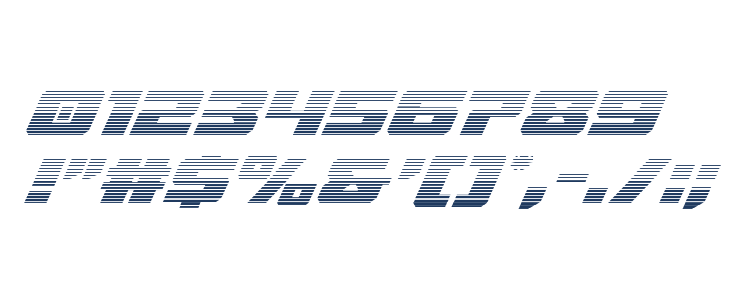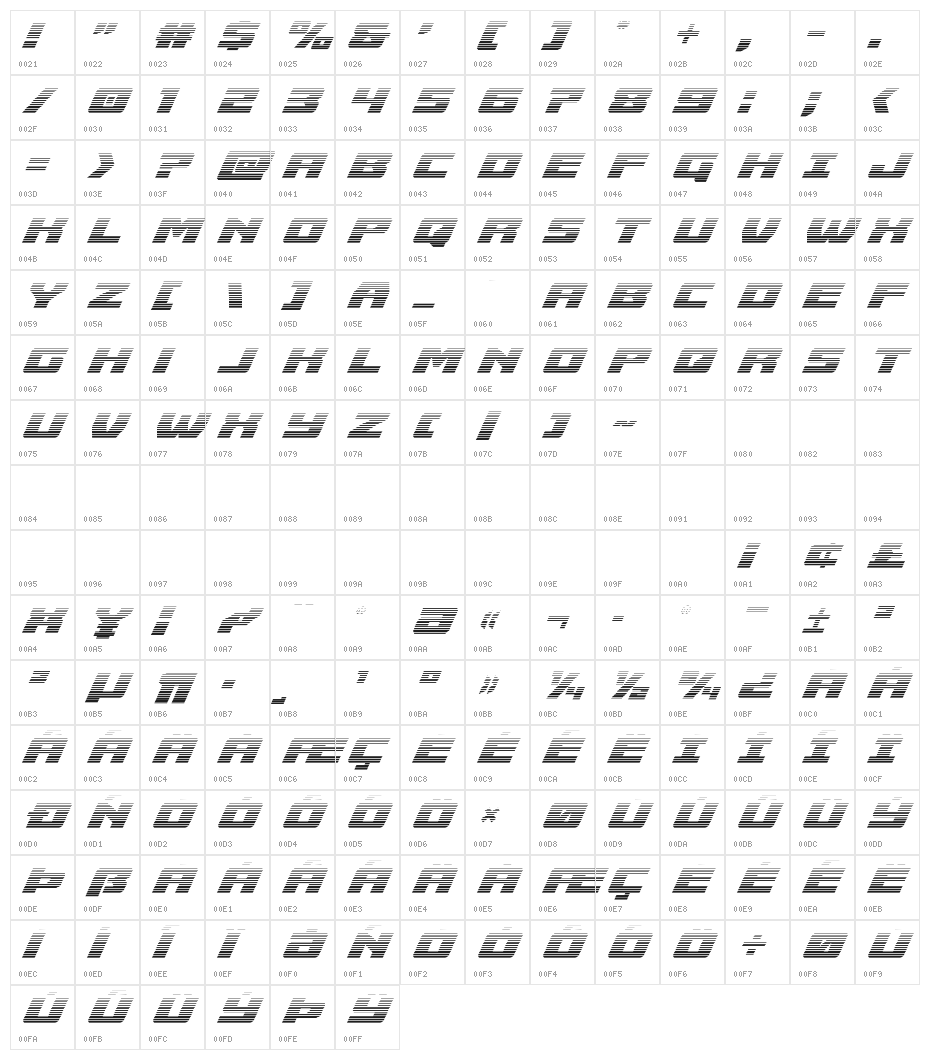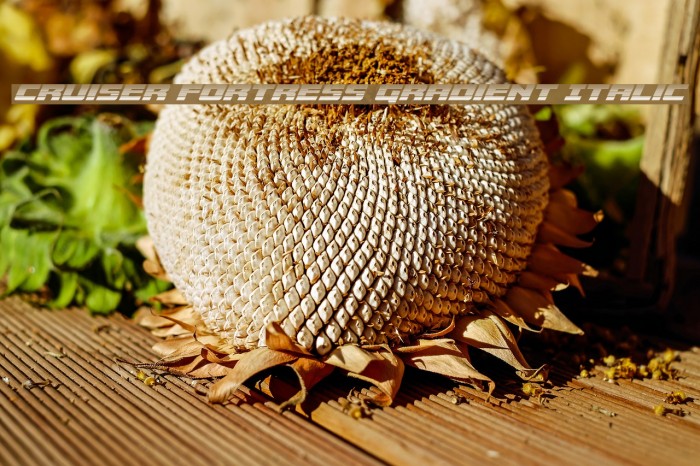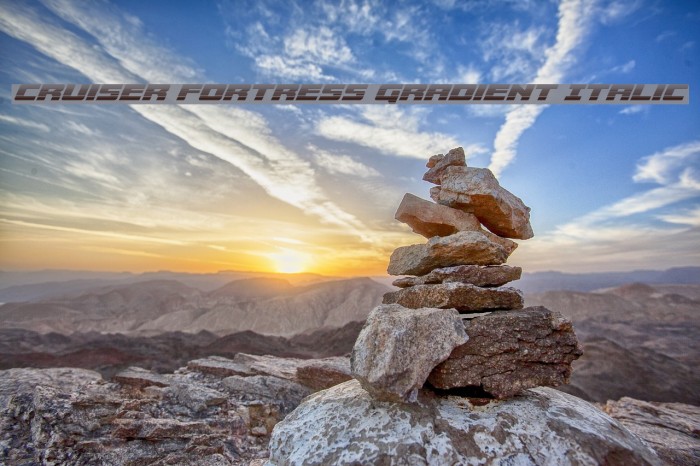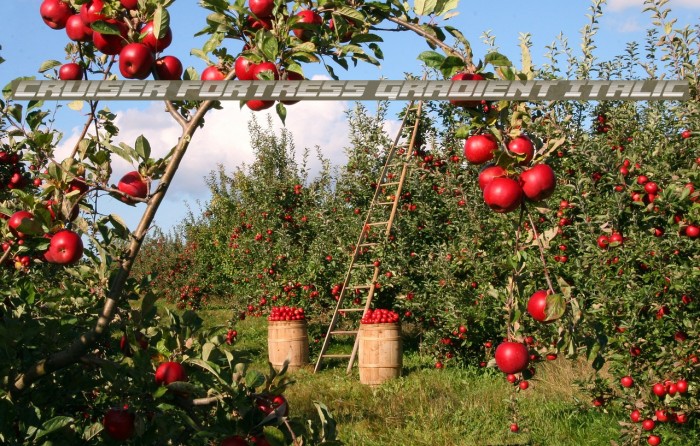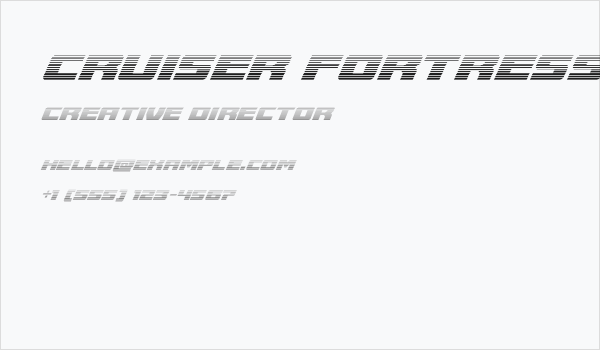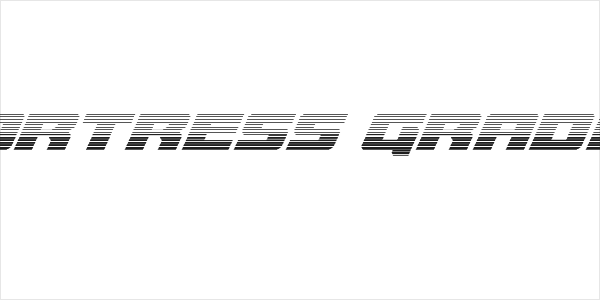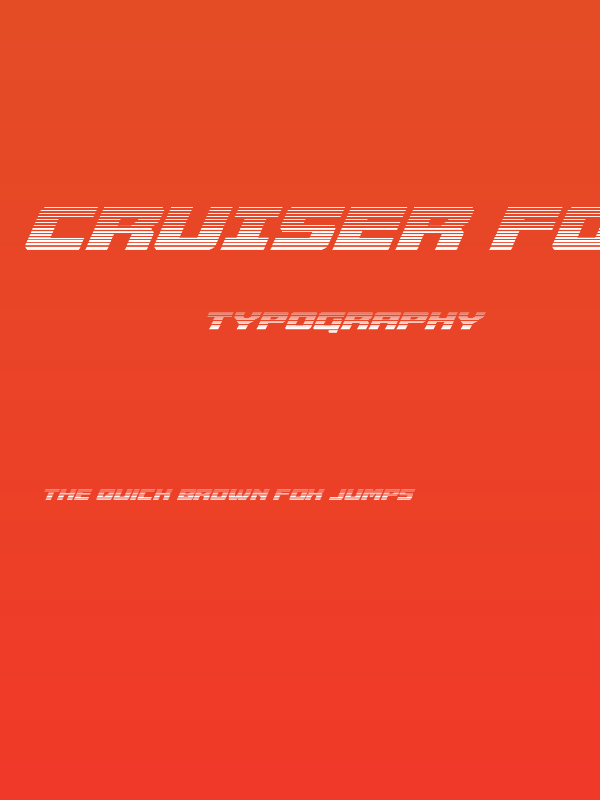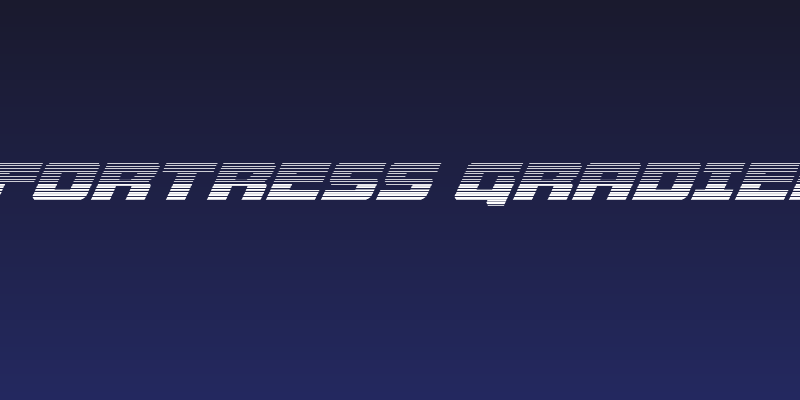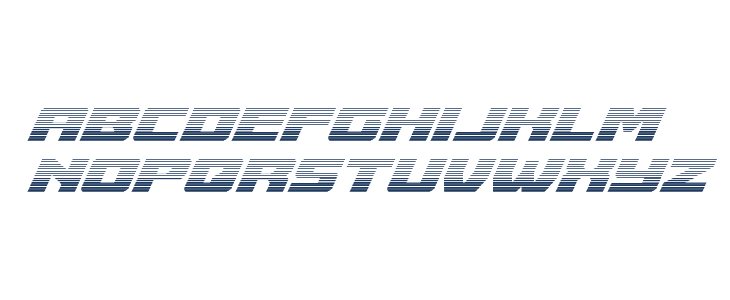
Cruiser Fortress Gradient Italic Font
Cruiser Fortress Gradient Italic Description
This font features a dynamic and futuristic design with a gradient effect that gives each character a sense of movement and depth. The italicized style enhances its modern appeal, making it suitable for projects that require a bold and innovative look. The characters are constructed with horizontal lines that create a sense of speed and direction, perfect for tech-oriented or avant-garde themes. The uppercase and lowercase letters maintain a consistent style, while the numerals and special characters seamlessly integrate into the overall design. The font's unique aesthetic makes it stand out, offering a visually striking option for creative projects.
| Proposed Projects | Ideal for tech branding, futuristic posters, video game titles, and sci-fi themed designs. |